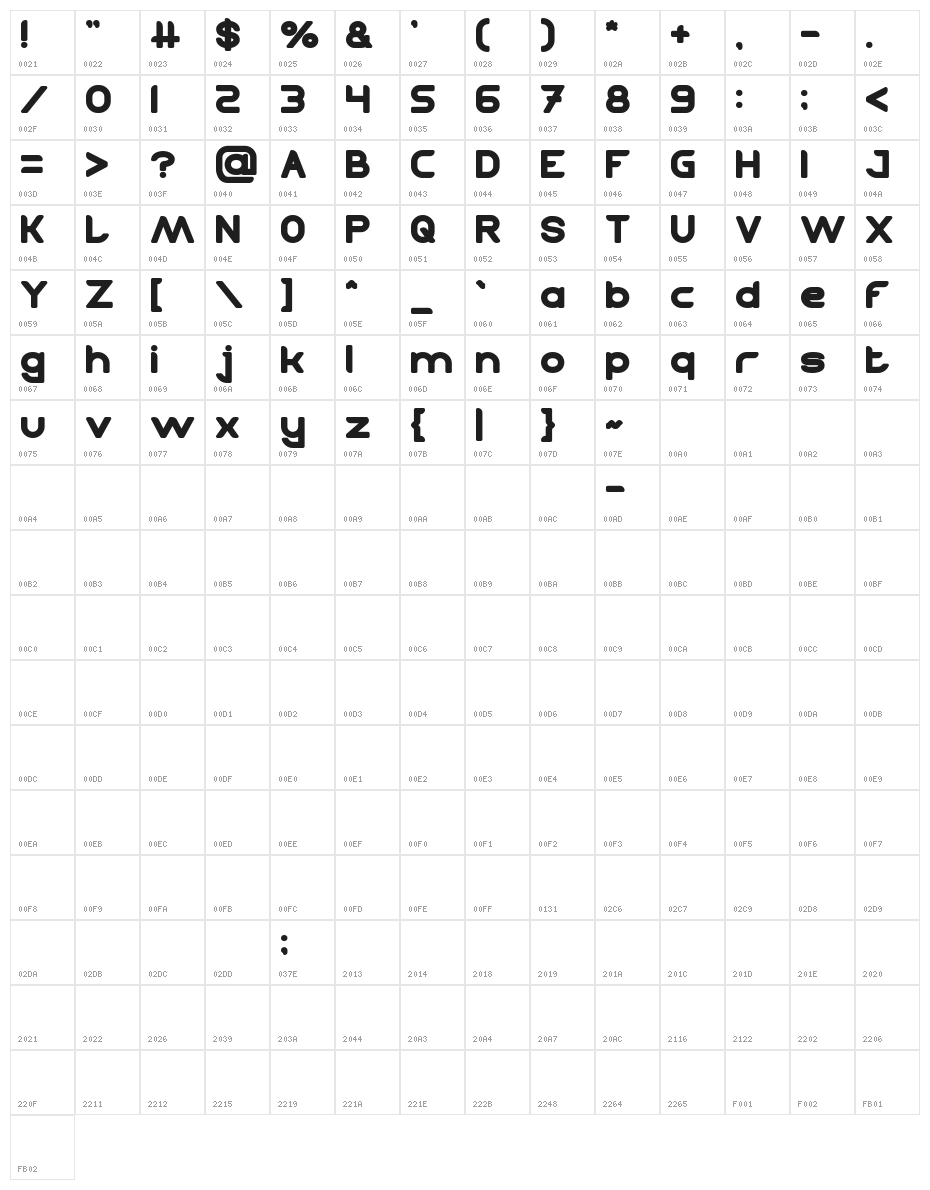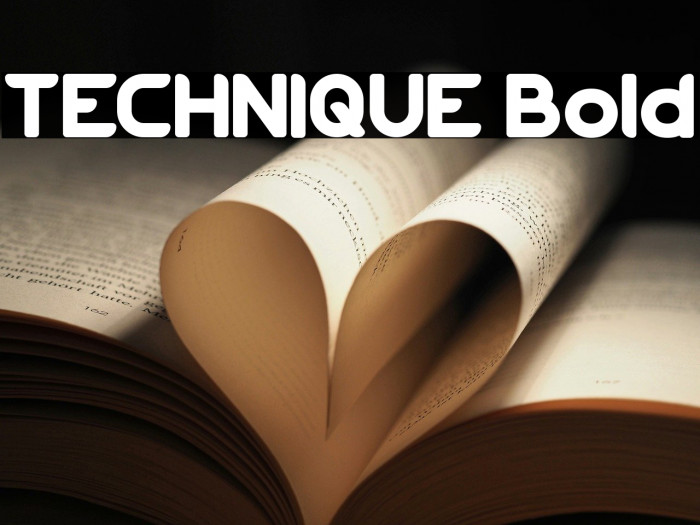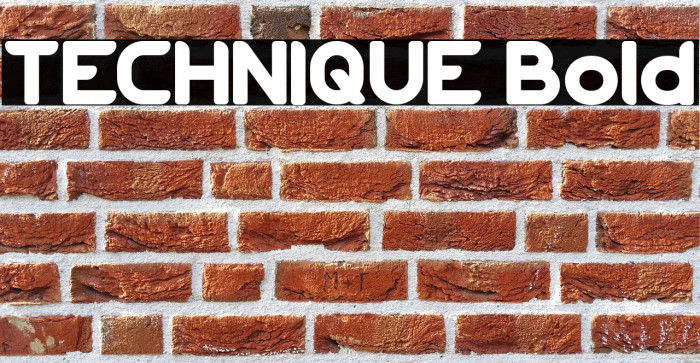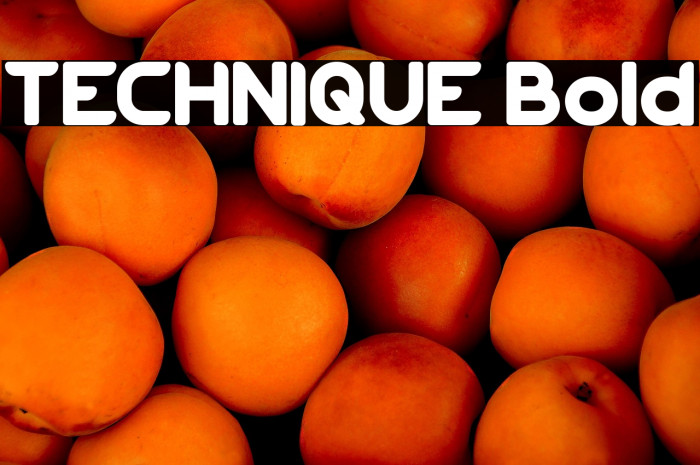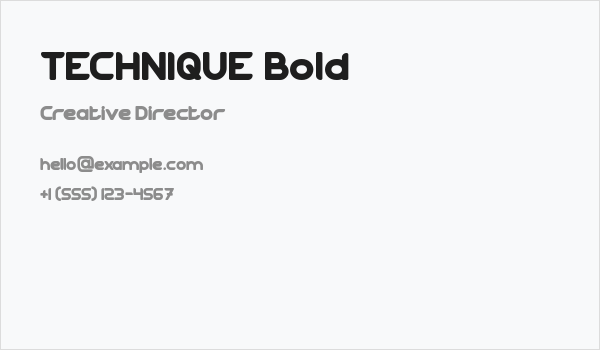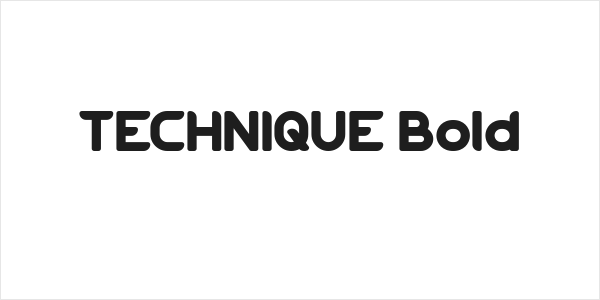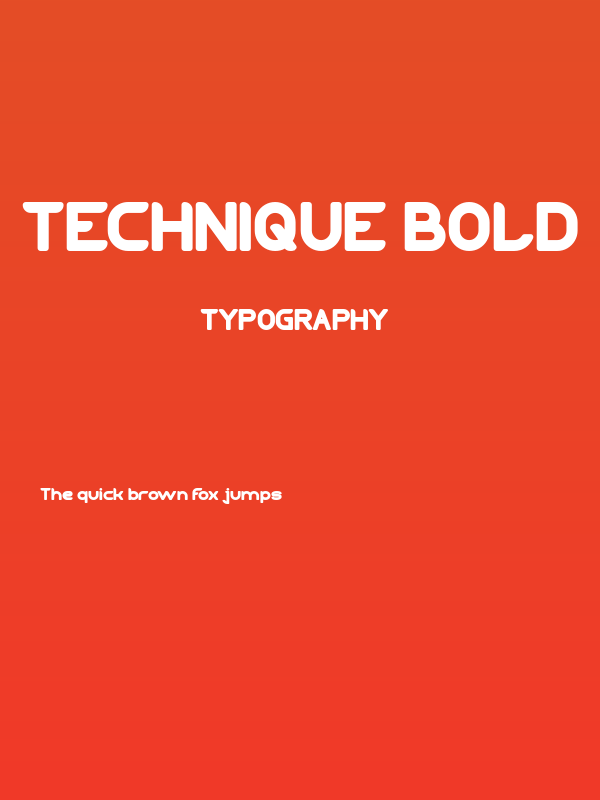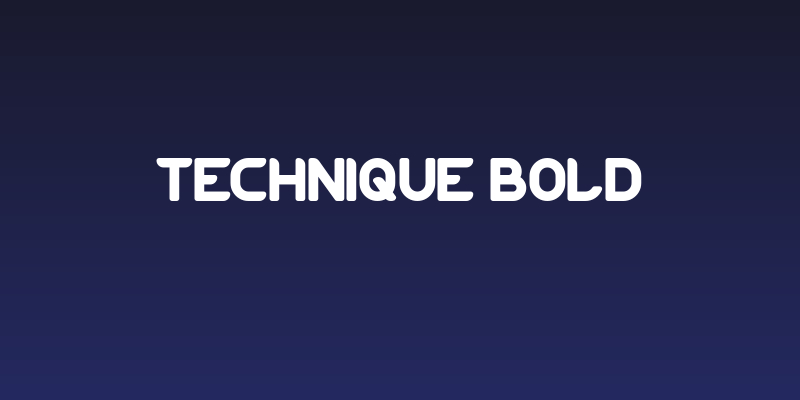
TECHNIQUE Bold Font
TECHNIQUE Bold Description
This font features a bold and rounded style with a modern and futuristic appearance. The characters are uniformly thick, providing a strong visual impact. The rounded edges give it a friendly and approachable feel, while maintaining a clean and professional look. The uppercase and lowercase letters are well-balanced, and the numerals are clear and legible. Special characters are distinct and consistent with the overall design, making it versatile for various applications.
| Proposed Projects | Ideal for technology branding, modern advertising, and futuristic design projects. |